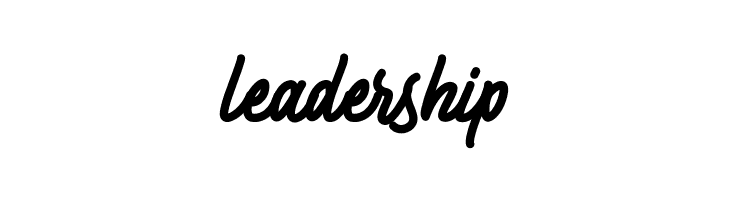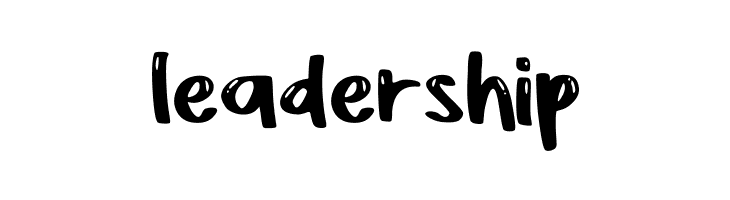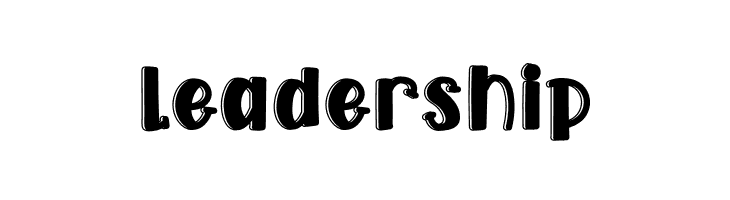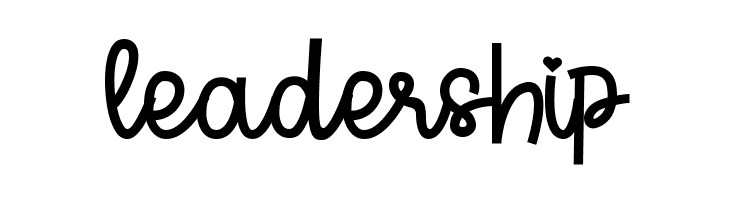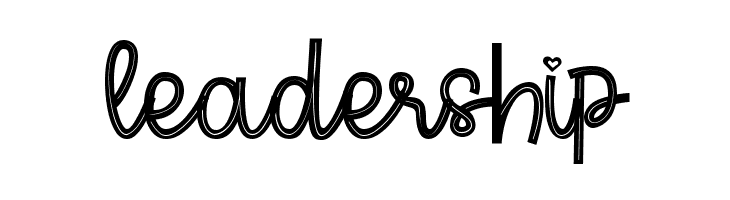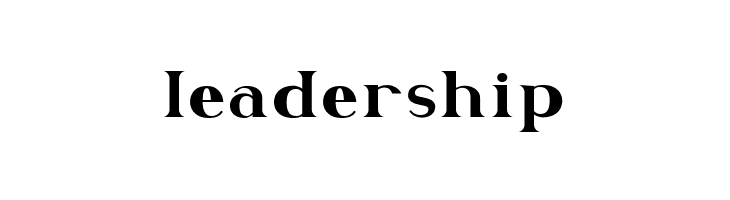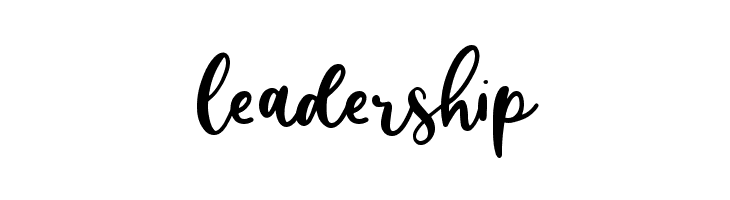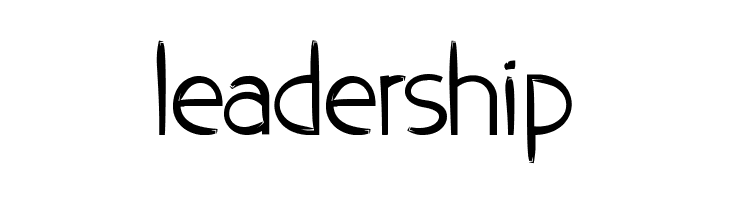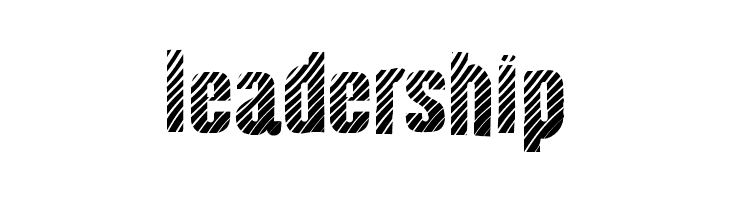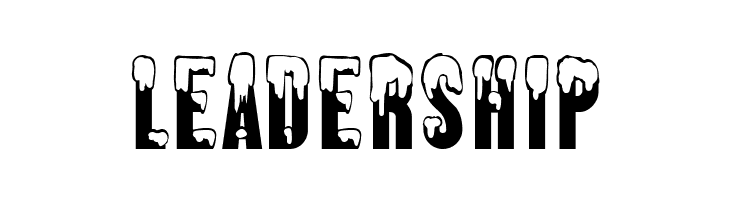
A playful, snow-capped decorative font perfect for festive designs.
A bold, decorative font with a diagonal woodgrain texture.
A bold, decorative font with a unique woodgrain texture.
A bold, expressive script font with fluid, connected letterforms.
A playful, hand-drawn style font with irregular strokes and a whimsical appearance.
A playful, hand-drawn font with a whimsical, cartoon-like style.
A modern, geometric font with a futuristic, minimalist style.
A playful, cartoonish font with bold, outlined characters inspired by Japanese animation.
A bold, comic-inspired font with a playful, three-dimensional effect and Japanese calligraphy influences.
A playful, decorative font with bold, bubble-like letters and a cartoonish style.
A bold, playful font with a three-dimensional shadow effect.
A bold, playful font with a hand-drawn, three-dimensional effect.
A bold, expressive script font with a lively, handwritten style.
A playful, bold outline font with a cartoonish and dynamic style.
A bold, decorative font with geometric and Sanskrit-inspired elements.
A geometric and decorative font inspired by traditional Sanskrit script with modern elements.
A bold, geometric font with a modern and elegant style.
A modern, geometric font with clean lines and a bold appearance.
A modern, geometric font with clean lines and uniform stroke width.
A lively, cursive handwritten font with fluid, connected strokes.
A dripping, cursive font with a bold, artistic style.
A playful, energetic script font with bold, flowing cursive letters.
An elegant serif font with decorative flourishes and classic elements.
A playful, hand-drawn font with varied stroke thickness and a whimsical style.
A playful, bold font with rounded, bubbly forms perfect for retro-themed designs.
A playful, bold font with curvy, whimsical letterforms.
A playful, hand-drawn font with bold, rounded characters.
A playful, handwritten script font with a whimsical and friendly style.
A playful, hand-drawn script font with whimsical embellishments.
A bold, playful handwritten font with thick strokes and an informal style.
A bold, flowing script font with a modern and dynamic style.
A playful and bold font with rounded and angular elements, perfect for lively designs.
A playful, bold font with a whimsical, hand-drawn style.
A playful, handwritten-style font with bold, rounded characters.